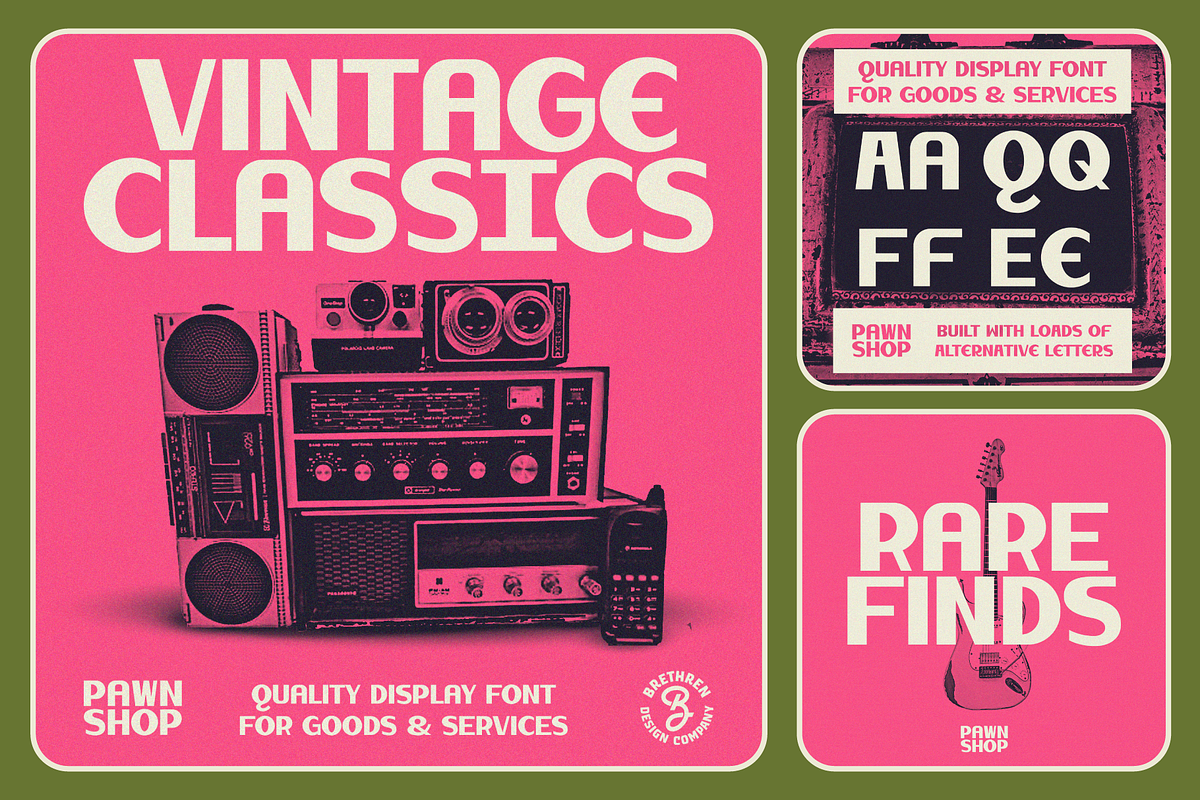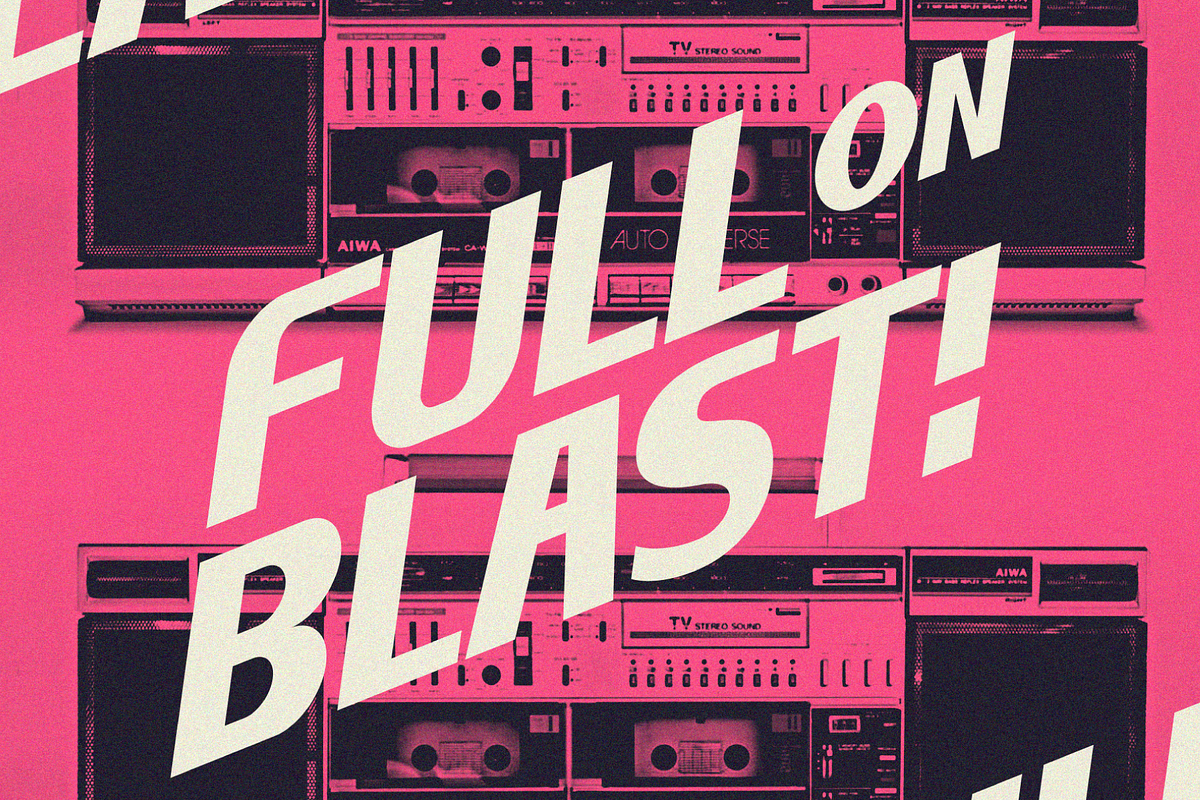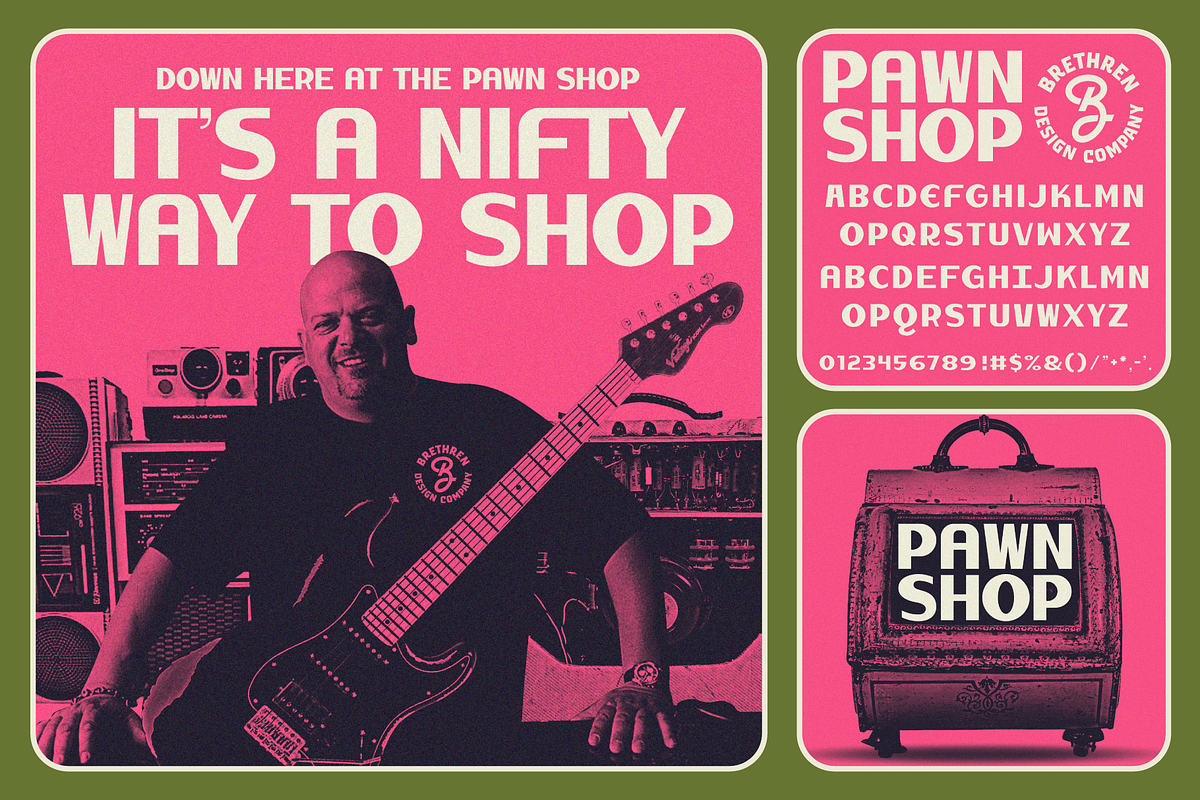
Pawn Shop Display Font
Inspired by signage from pawn shops and hand-painted store fronts this new vintage inspired display font with alt letters, numbers and punctuation. Alternative letters toggle with the caps lock for your preference of certain letters feeling squared off or rounded.